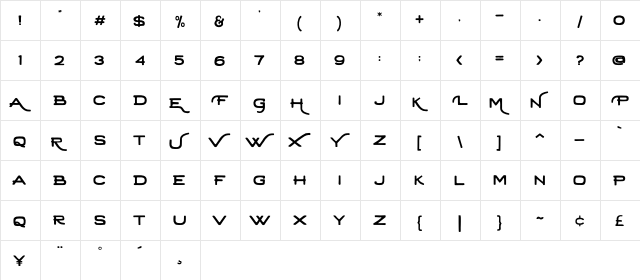
Retrica Regular
| Foundry | Republik Digital |
| Designer | Republik Digital |
Design Context for Retrica Typeface
Retrica takes a measured approach to typography — its balanced proportions and neutral character make it a reliable workhorse for both digital and print work.